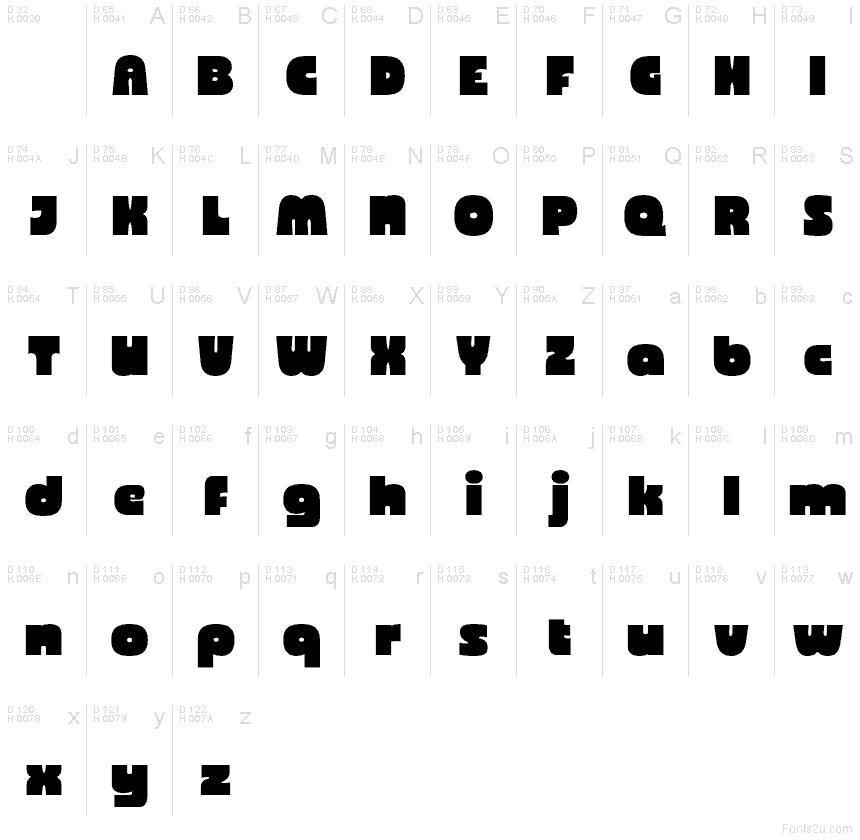
CS Midway Regular Demo
CS Midway font by Craft Supply Co. is a free bold retro display font that leans into pillowy, soft-cornered forms and chunky, inky mass. Its defining move is the bubbly silhouette—thick strokes, rounded terminals, and squarish counters—that reads loud and friendly without turning sloppy. Letters lock together with an easy rhythm, giving headlines that puffed, midway-booth confidence while staying legible at a glance.
Using CS Midway, you’ll get big, tactile impact for poster titles, vintage-flavored packaging, event flyers, playful logos, stickers, album covers, and social promos. The generous curves create a compact, brick-like texture that holds up in tight layouts and sings at large sizes. Pair this free font with a light geometric sans for body copy, and let CS Midway carry the headline weight.
CS Midway Demo